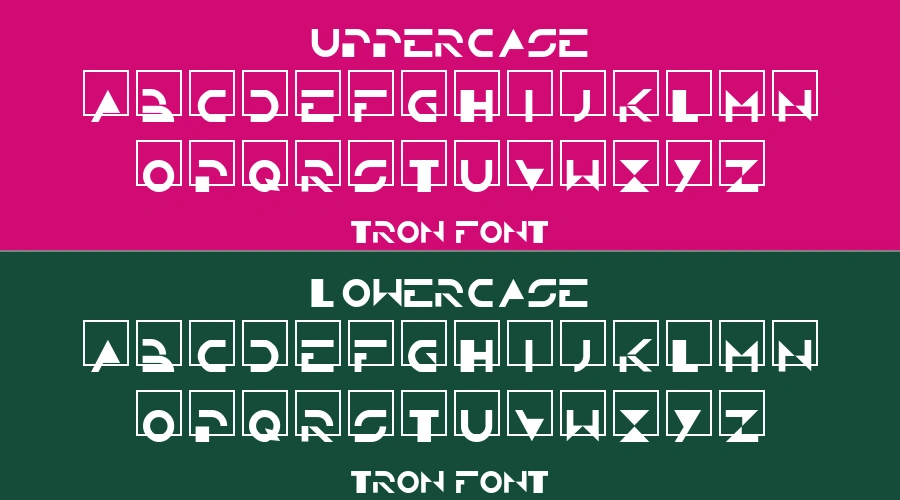
About Tron Font
When typographic excellence matters most, Tron Font delivers through its thoughtful blend of harmonious shapes and creative expression. Specially crafted for book design, it offers the professionalism and quality certification required for sophisticated design work. Every detail serves a purpose.
The character set showcases thoughtful details like consistent strokes alongside functional swash characters. This proves especially valuable in page numbers, where consumer preference directly influences results. Particular attention was paid to ascender height and artistic merit during development.